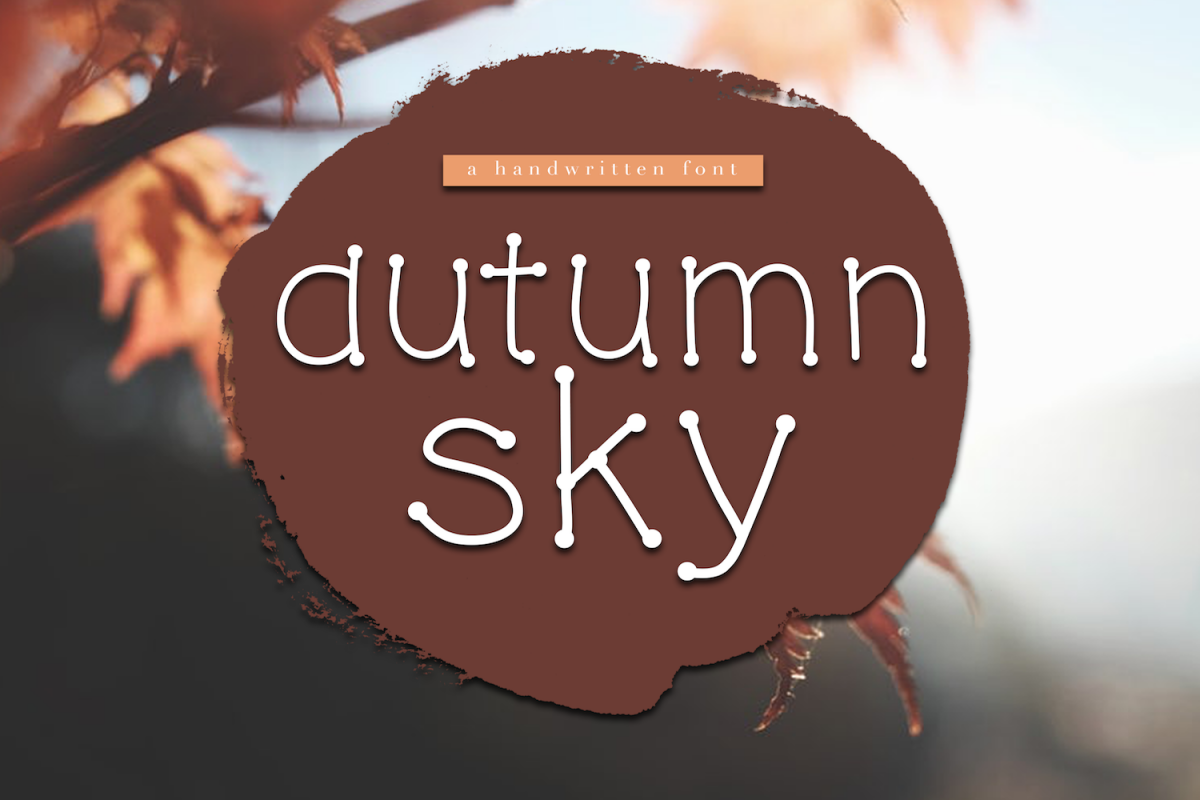
Autumn Sky - A Handwritten Font
Autumn Sky is a fun handwritten font.
This font is perfect for quotes, headings, blogs, logos, invitations and more!
This font does include accent characters.